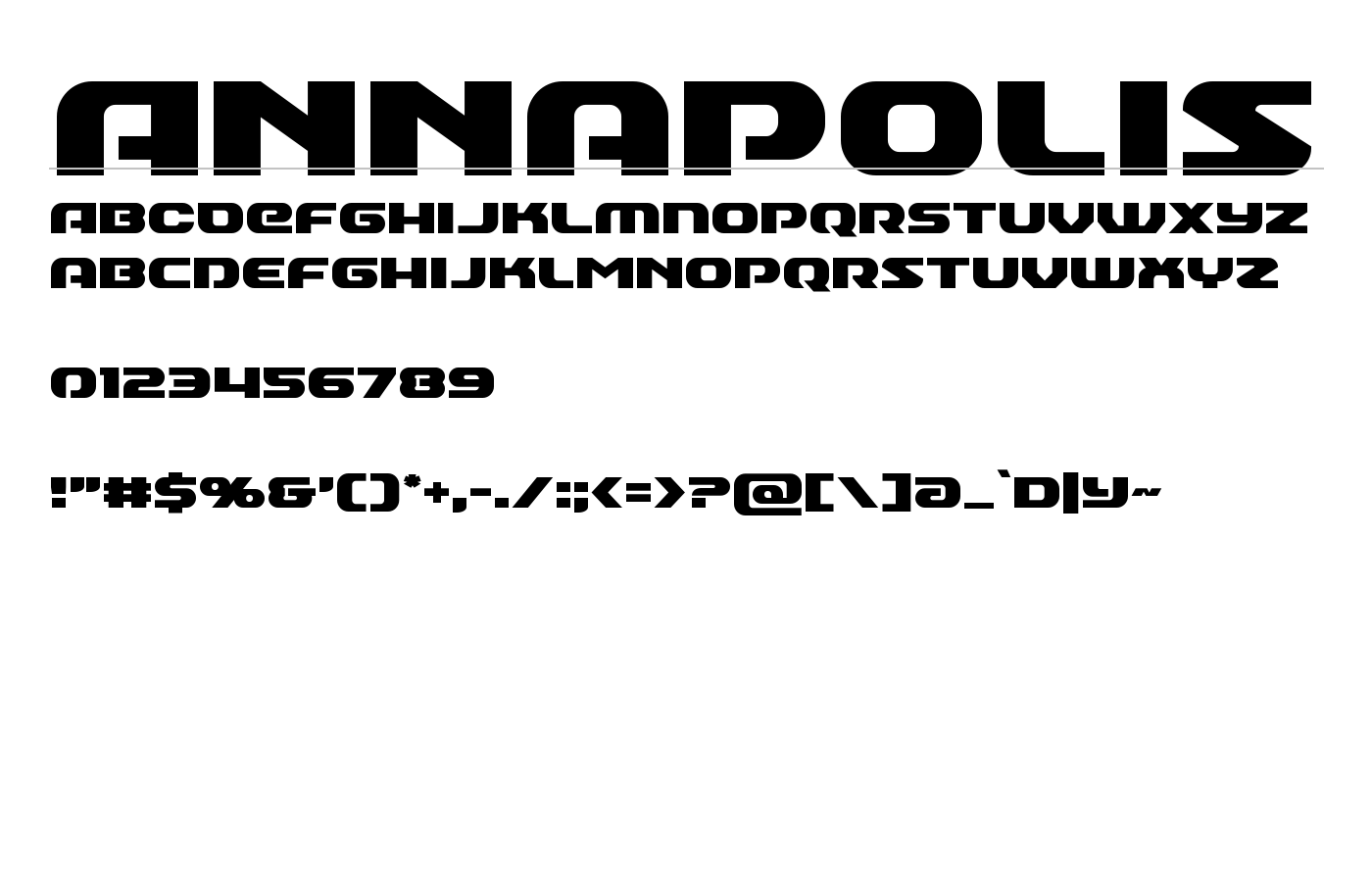
Annapolis is a bold, futuristic sans-serif font with a strong, geometric structure and high visual impact. Its heavy weight, squared shapes, and stylized curves evoke a modern, technical feel, making it ideal for striking headlines, logos, and branding in technology or sports industries where a daring, contemporary vibe is desired. This font’s distinctive style works best in large sizes, grabbing attention and conveying confidence with its clean, sharp forms.
Annapolis Font
About Annapolis Font